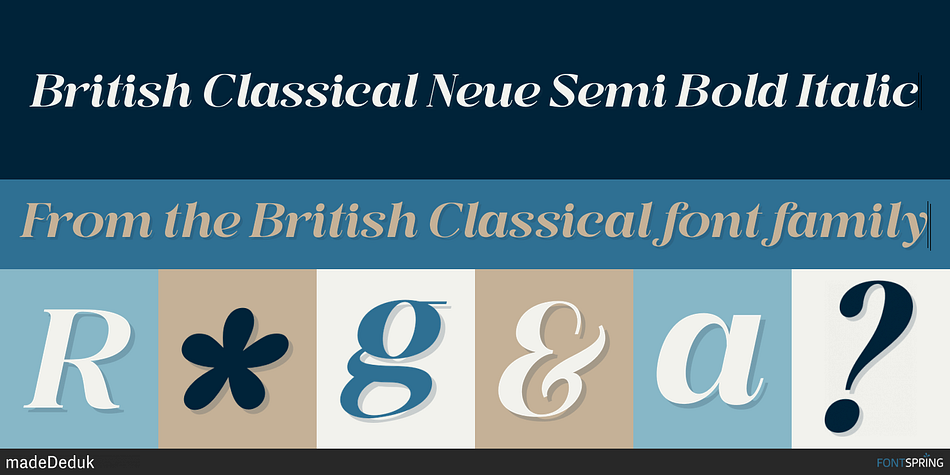
British Classical Neue Semi Bold Italic
Designed by Suandana Ipandemade, British Classical is a display serif and serif font family. This typeface has twenty-four styles and was published by madeDeduk.
BritishClassical and BritishClassical Neue is a Classic serif family. It’s clean and smooth with 9 variable weight combining the regular and italic and much alternative inside. Suitable to create any branding, product packaging, invitation, quotes, t-shirt, label, poster, logo etc.